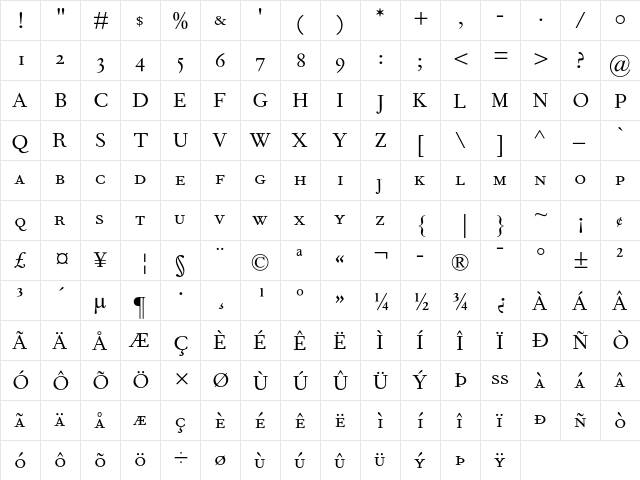
Fournier MT SC
Design Context for Fournier MT Typeface
Fournier MT offers clean, dependable letterforms without strong stylistic allegiance, making it a practical choice for designers who need flexibility.
Pro Tip: Pair Fournier MT with a font of contrasting weight or personality to build a more expressive typographic hierarchy.